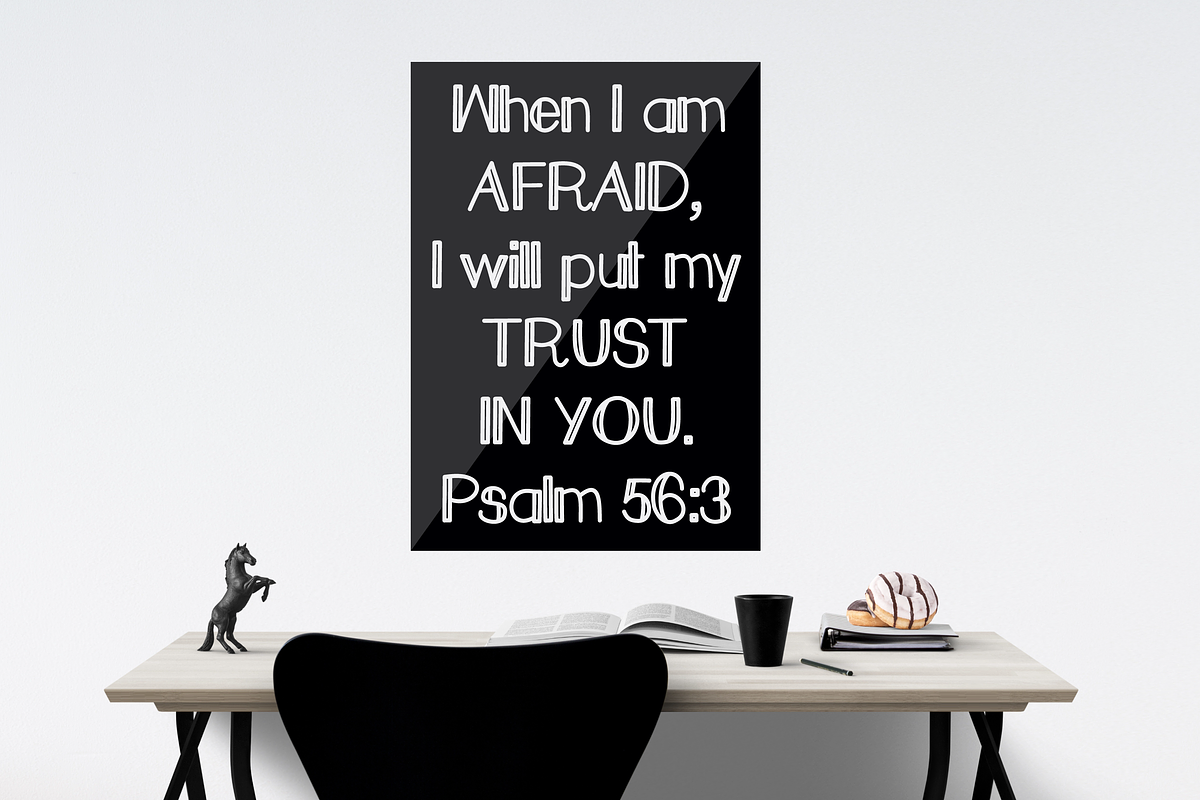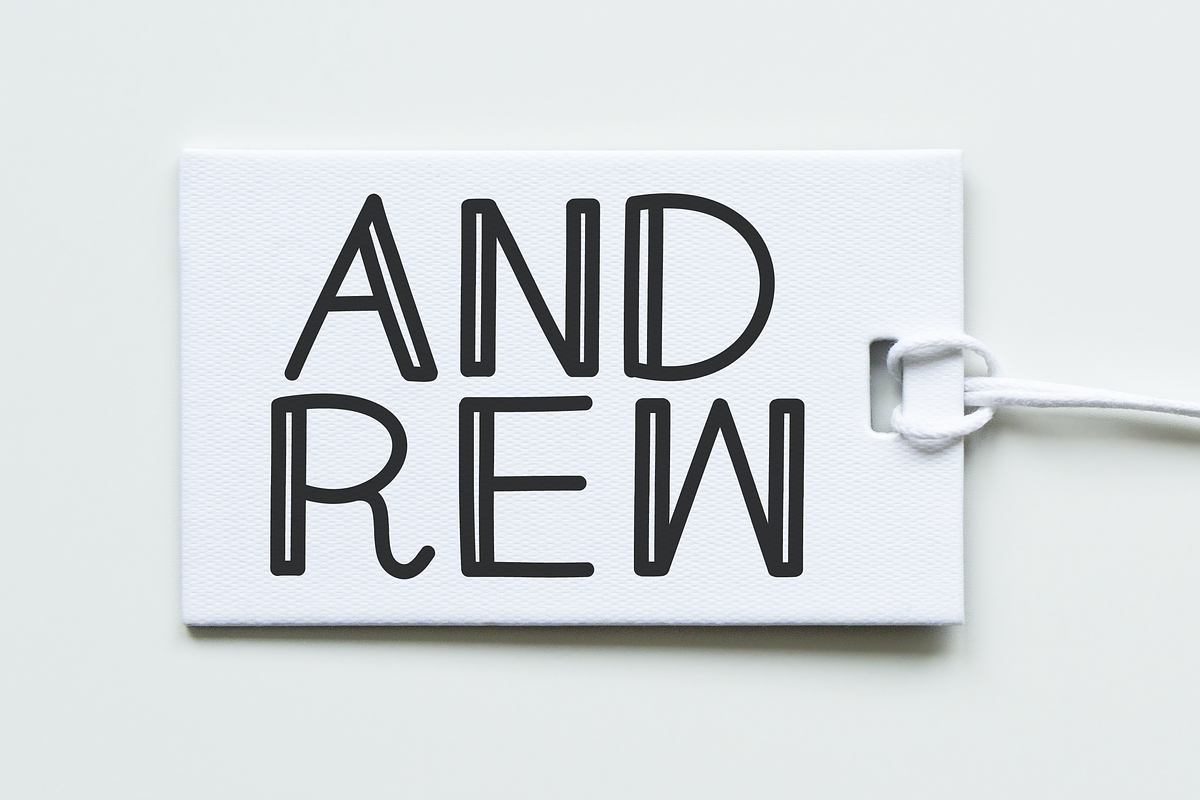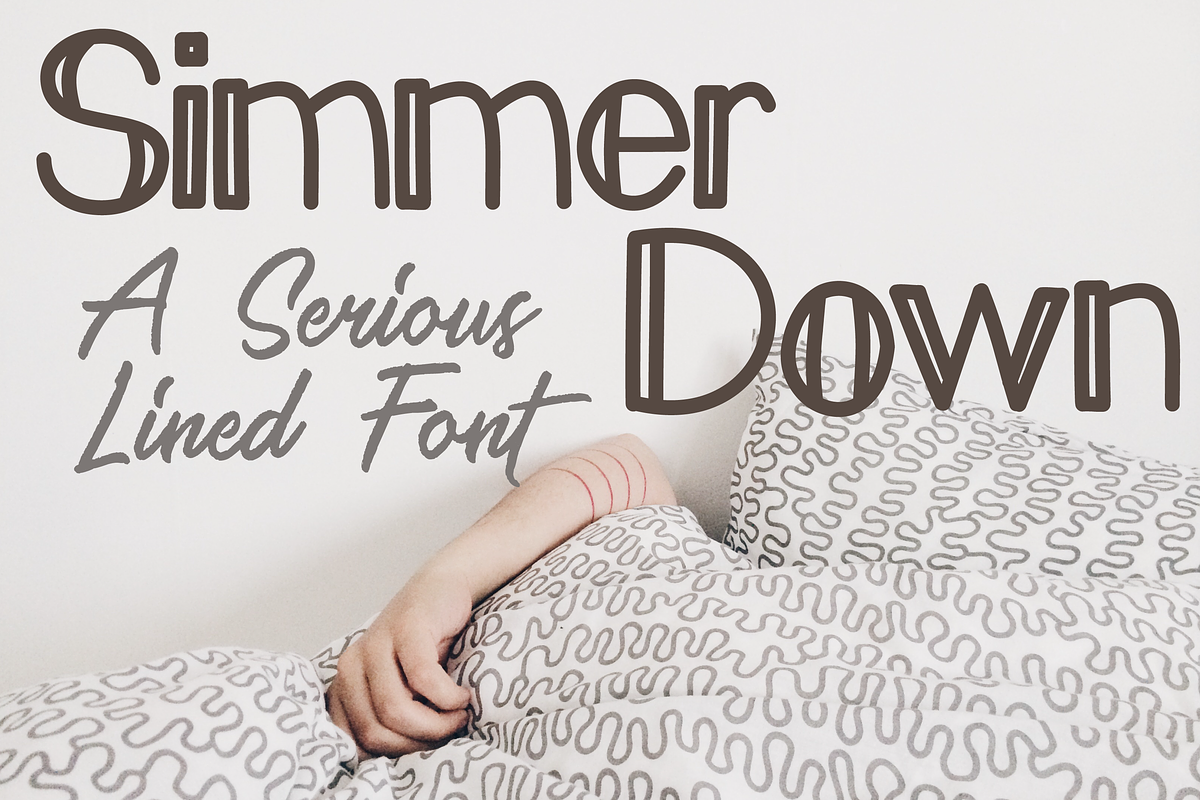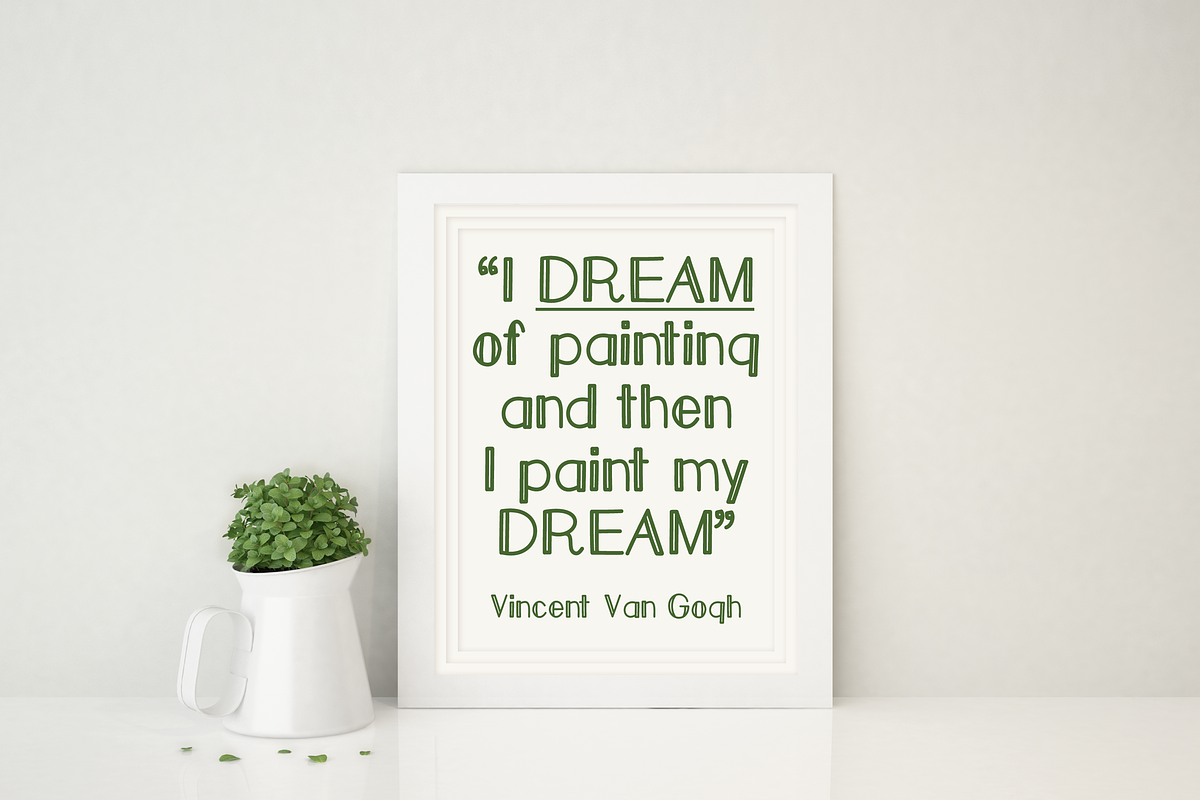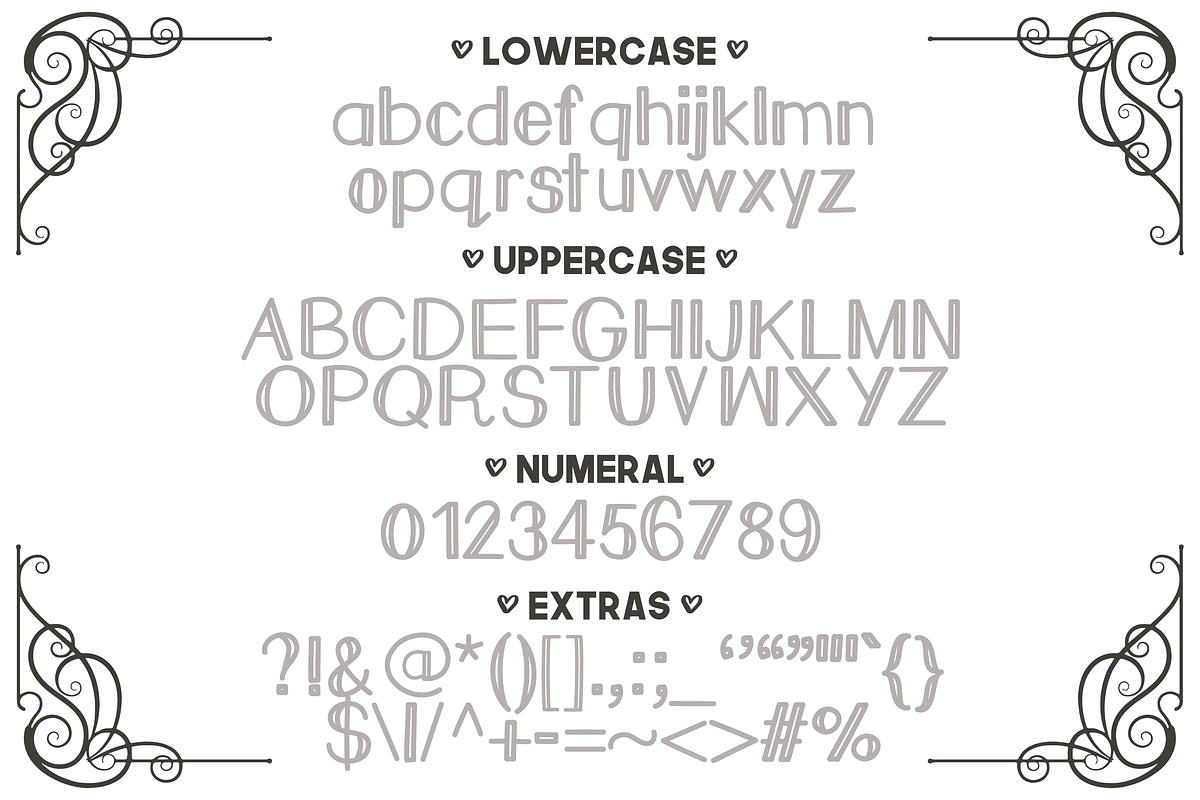
Simmer Down is a more serious Sans Serif Font. Features a strong double line on vertical areas of the lettering. Still has a very handwritten feel about it while being more serious. Great for logos and headlines!